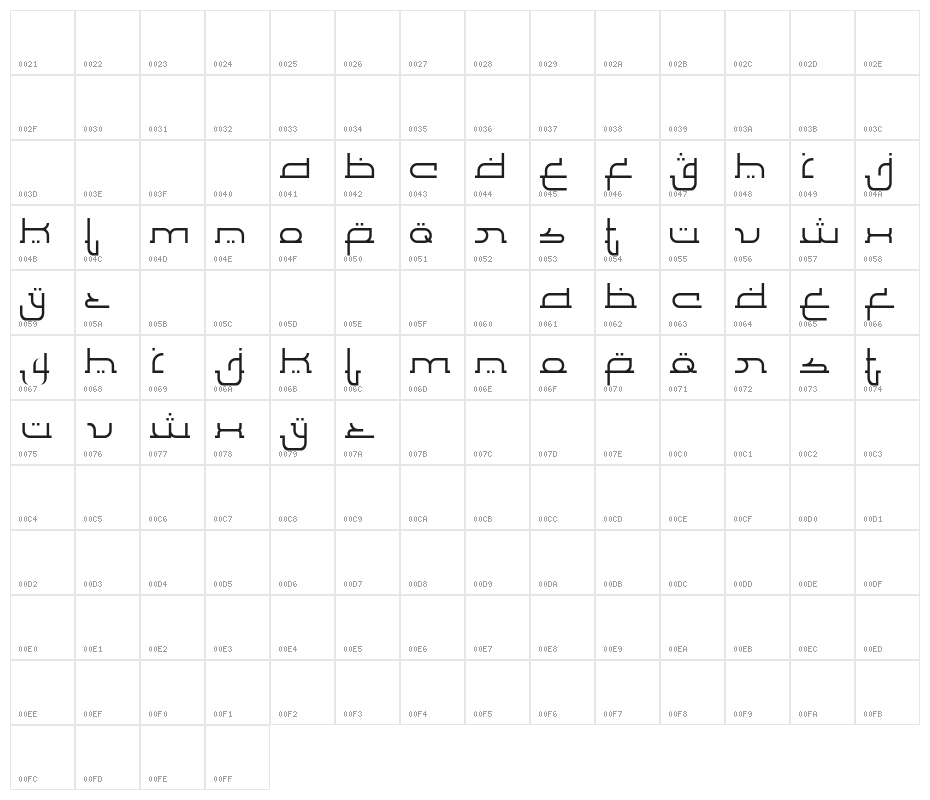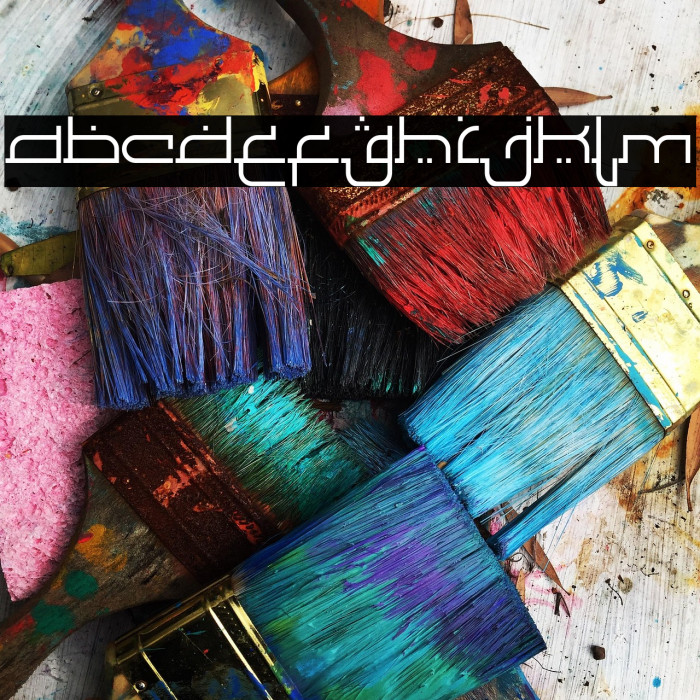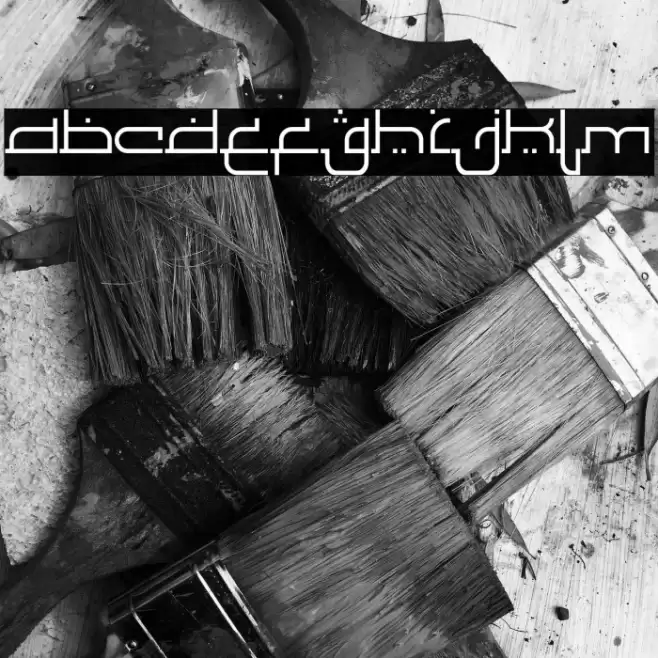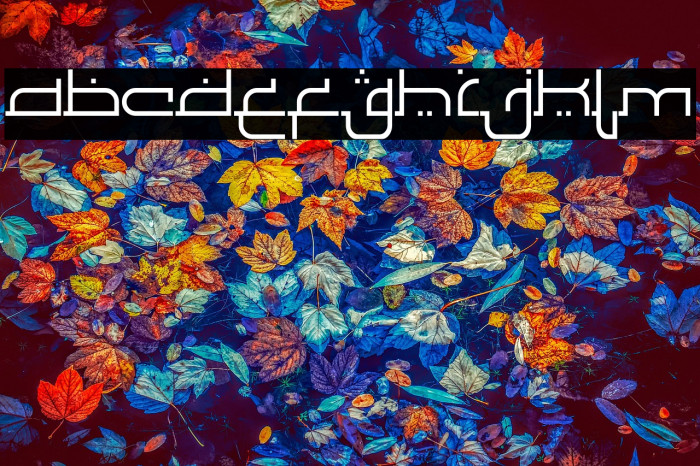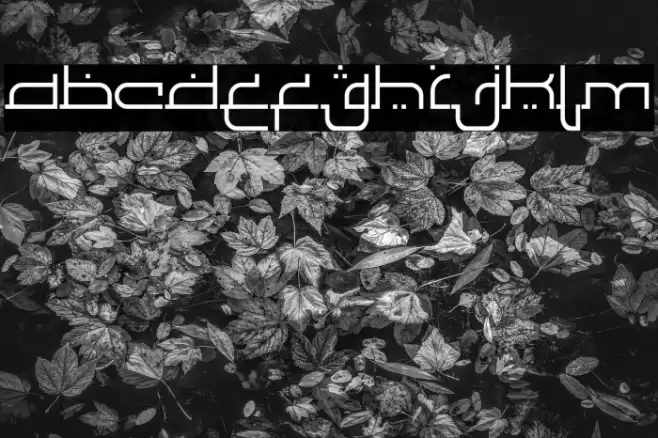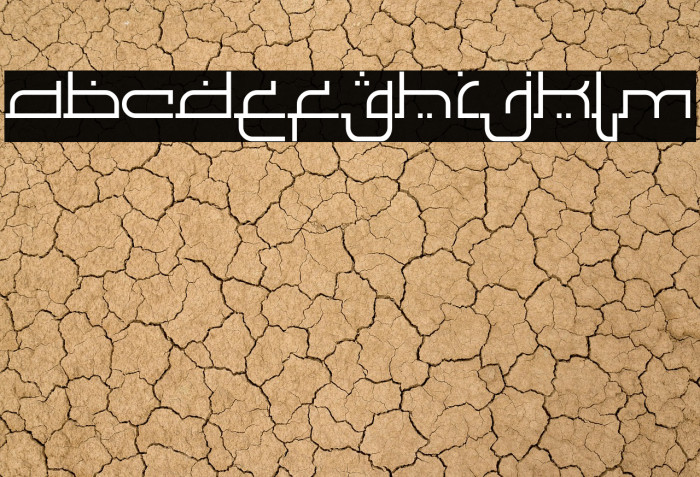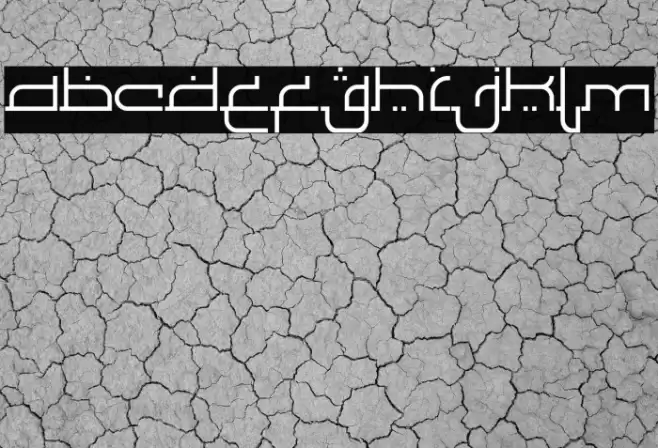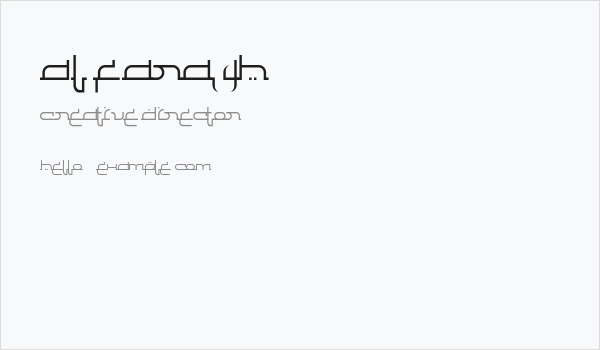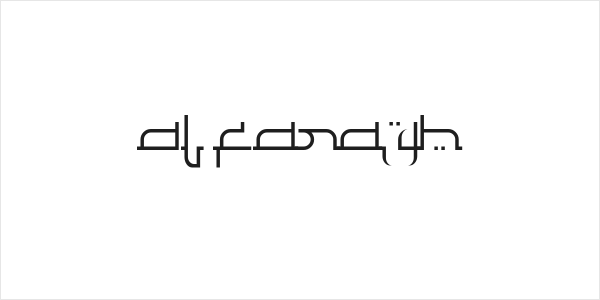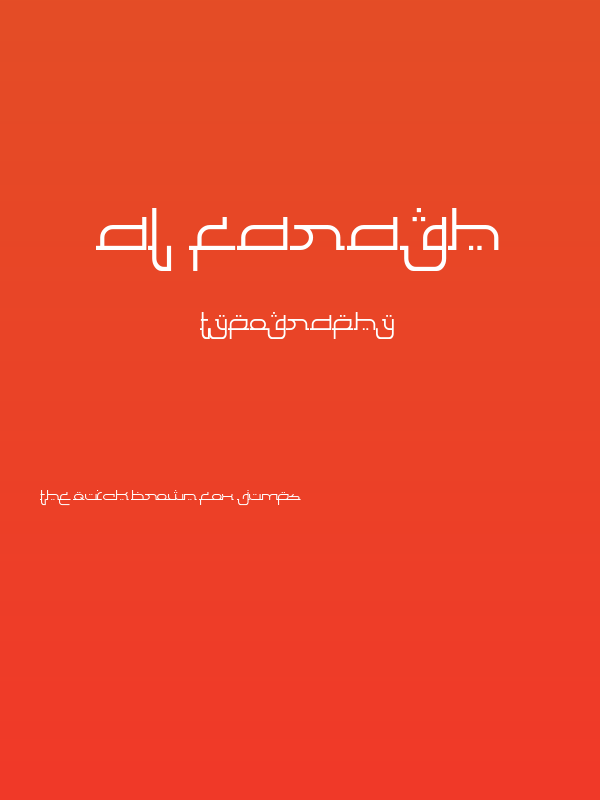
Al Faragh Font
Al Faragh Description
This font features a unique and modern design with a geometric and linear aesthetic. The characters are constructed with a combination of straight lines and curves, creating a futuristic and minimalistic appearance. The uppercase and lowercase letters maintain a consistent style, with a focus on symmetry and balance. The font includes special characters that blend seamlessly with the overall design, enhancing its versatility. Its distinctive style makes it suitable for creative and contemporary projects, offering a fresh and innovative look.
| Proposed Projects | Ideal for branding, logos, tech-related designs, and modern art projects. |